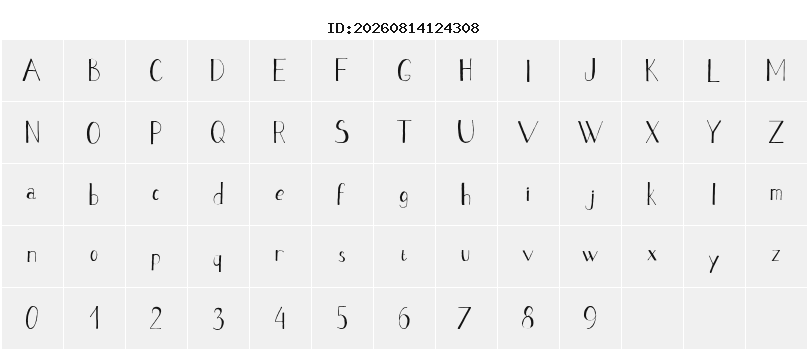
• Font Name: Stripe black
• Manufacturer: Anastasia Popova
About Stripe black.ttf
Stripe black.ttf is a modern, elegant sans-serif font designed for ultimate readability and visual harmony. Perfect for branding, headlines, web design, and print materials.